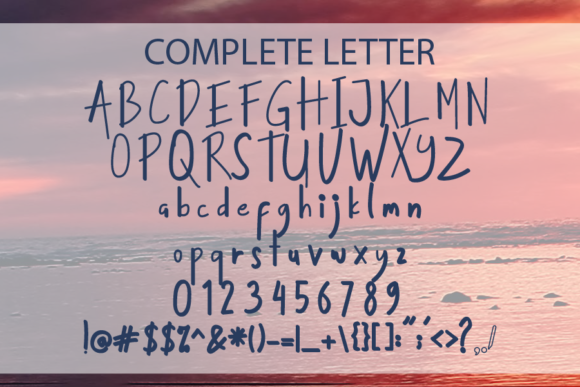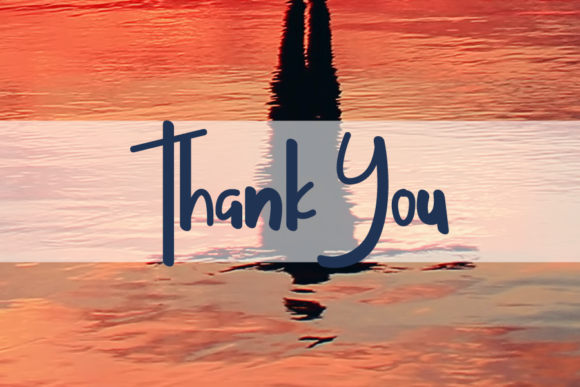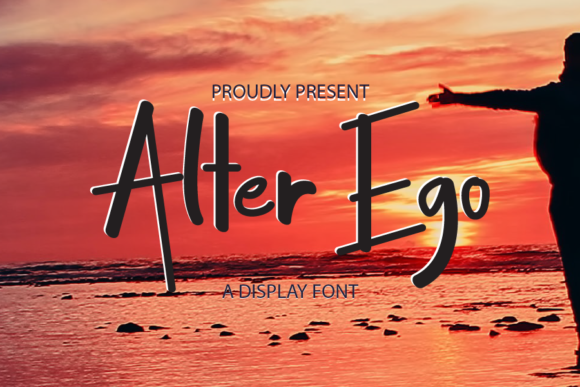
Discover the Charm of Alter Ego Font: A Simple yet Unique Handwritten Style
Are you a designer, crafty enthusiast, or simply someone who appreciates the beauty of typography? Look no further than the Alter Ego Font, a delightful handwritten font that is sure to capture your heart. With its simple, friendly, and natural style, Alter Ego is an incredibly versatile font that can be used in a wide range of designs, from playful and whimsical to elegant and sophisticated.
The Story Behind Alter Ego Font
Alter Ego Font is a carefully crafted typeface that embodies the spirit of creativity and imagination. Its unique style is characterized by flowing lines, gentle curves, and a warm, inviting feel that makes it perfect for a variety of applications. Whether you’re designing a logo, creating a handmade card, or crafting a beautiful journal page, Alter Ego Font is the perfect companion to help you bring your ideas to life.
What Makes Alter Ego Font So Special?
So, what sets Alter Ego Font apart from other handwritten fonts out there? Here are just a few reasons why this font has become a favorite among designers and crafters:
- Simple yet Unique: Alter Ego Font has a simple, uncomplicated design that is both easy to read and visually appealing. Its unique style is instantly recognizable, making it perfect for creating distinctive brand identities, logos, and marketing materials.
- Natural and Friendly: The font’s natural, handwritten style gives it a warm and friendly feel that’s perfect for creating a connection with your audience. Whether you’re designing for a business or personal project, Alter Ego Font helps to create a sense of approachability and warmth.
- Versatile: One of the best things about Alter Ego Font is its incredible versatility. It can be used in a wide range of designs, from elegant and sophisticated to playful and whimsical. The only limit is your imagination!
Uses for Alter Ego Font
So, what can you use Alter Ego Font for? The possibilities are endless! Here are just a few ideas to get you started:
- Branding and Logo Design: Create a unique and memorable brand identity with Alter Ego Font. Its distinctive style is perfect for creating logos, business cards, and marketing materials that stand out from the crowd.
- Handmade Crafts: Add a personal touch to your handmade crafts, such as cards, journals, and scrapbook pages, with Alter Ego Font. Its natural, handwritten style is perfect for creating a sense of warmth and personality.
- Digital Design: Use Alter Ego Font in your digital designs, such as social media graphics, blog posts, and website headers, to add a touch of elegance and sophistication.
Tips for Using Alter Ego Font
Here are a few tips for getting the most out of Alter Ego Font:
- Experiment with Sizes: Alter Ego Font looks great in a variety of sizes, from large and bold to small and delicate. Experiment with different sizes to find the one that works best for your design.
- Play with Colors: The font’s natural style looks great in a range of colors, from bright and bold to soft and pastel. Experiment with different colors to find the one that works best for your design.
- Mix and Match: Don’t be afraid to mix and match Alter Ego Font with other fonts and design elements to create a unique and eye-catching design.
In conclusion, Alter Ego Font is a simple yet unique handwritten font that is perfect for designers, crafters, and anyone who appreciates the beauty of typography. Its natural and friendly style makes it incredibly versatile, and its wide range of uses makes it a valuable addition to any design toolkit. So why not give Alter Ego Font a try and see what amazing designs you can create?